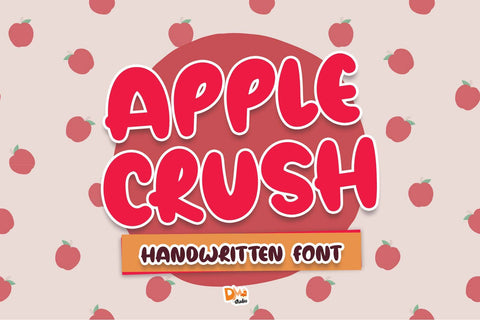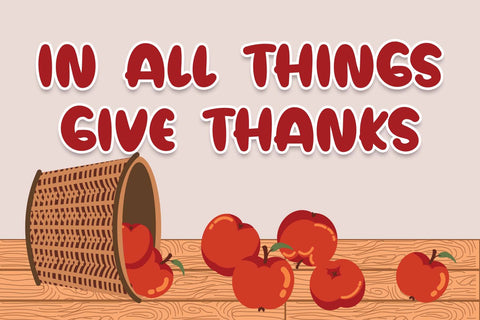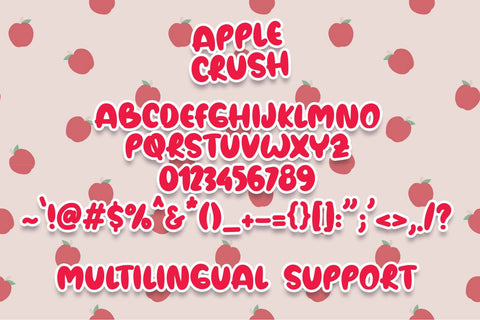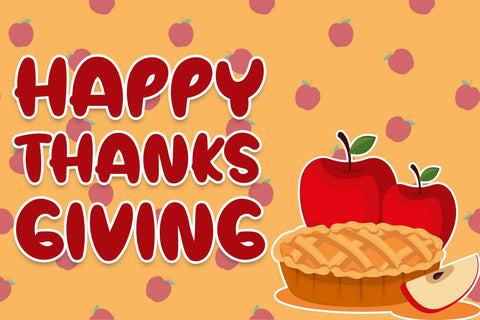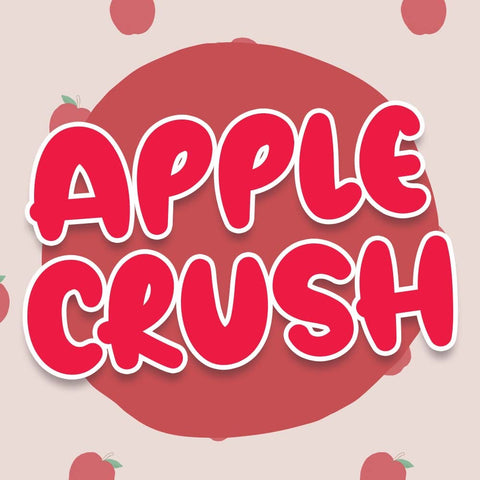
Apple Crush Font
Apple Crush Font is a charming and versatile typeface designed to infuse your designs with a fresh and fruity vibe. With its playful letterforms and crisp style, this font is perfect for a variety of projects, including branding, packaging, posters, and more. Add a touch of sweetness to your designs with the delightful Apple Crush Font.
- Fresh and Fruity Design: Apple Crush Font features a fresh and fruity design that adds a crisp and vibrant element to your text.
- Versatility in Application: Ideal for a wide range of design projects, from product packaging to event invitations, offering a refreshing twist to your creations.
- Uppercase and Lowercase Letters: Provides both uppercase and lowercase letters for creative flexibility and balanced typography.
- Punctuation and Symbols: Comprehensive set of punctuation marks, numerals, and symbols for consistent and versatile use across different projects.